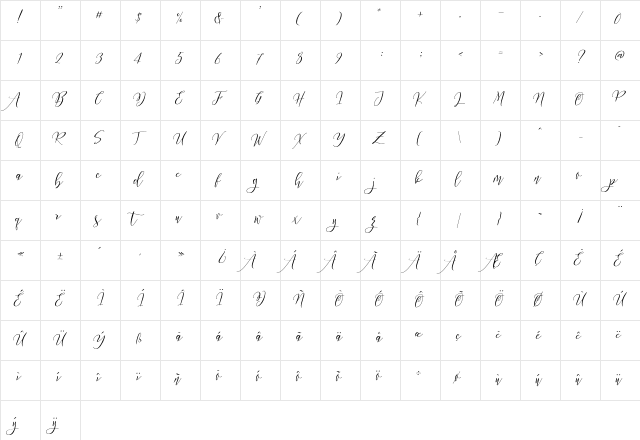
Frutilla Script Regular Font Preview
Frutilla Script Regular
Frutilla Script Regular Font Details
| Foundry | Ianmikraz |
| Designer | Ianmikraz |
Design Context for Frutilla Script Typeface
Frutilla Script brings a calligraphic fluidity to the page — its connecting strokes and expressive curves give it an unmistakably human quality.
Font Pairing: Combine Frutilla Script with a simple geometric sans for maximum contrast — the tension between flowing curves and clean structure is a classic typographic pairing.
Pro Tip: Use Frutilla Script for short runs of text — names, titles, or taglines. Extended body copy in script faces tires the eye quickly.